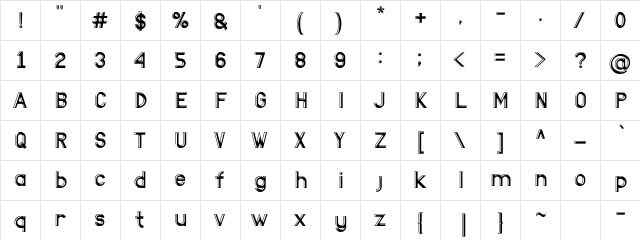
BLACK HIGHLIGHT Regular
| Designer | Indra Gunawan |
Design Context for BLACK HIGHLIGHT Typeface
BLACK HIGHLIGHT is a composed and adaptable typeface that performs quietly and consistently across a wide range of design contexts. Its slender proportions lend an understated elegance to any composition.